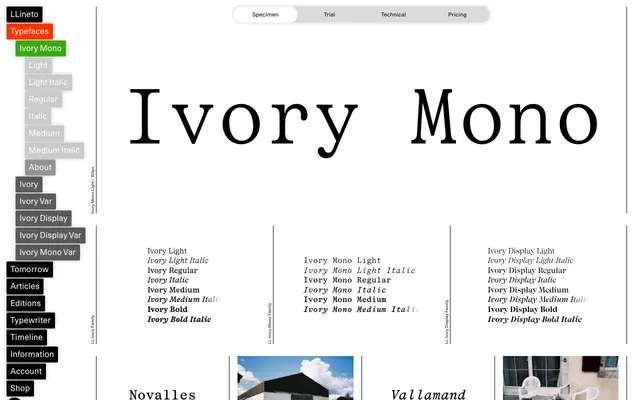
LL Ivory Mono
Lineto · Aurèle Sack · 1974
The monospaced subfamily of Aurèle Sack's LL Ivory, bringing the family's sturdy serif construction and surgically clean geometry into fixed-width cuts.
Drawn by Aurèle Sack, LL Ivory Mono takes the reduced-contrast serif shapes of the LL Ivory text family and applies them to a monospaced grid — an unusual combination that gives the cuts both typographic character and technical utility. Three weights from Light to Medium each come with italics, making it usable across a range of settings where a serif mono would ordinarily be a compromise. The family originated in a 2016 commission for Vogue Hommes Paris and was developed over several years through editorial, book and identity work before wide release.
LL Ivory Mono is the monospaced subfamily of a high-contrast serif family, making it a rare serif monospaced design with pronounced serifs and reduced contrast suited to text use.